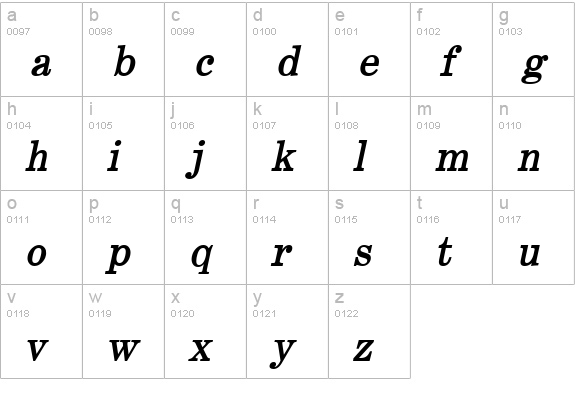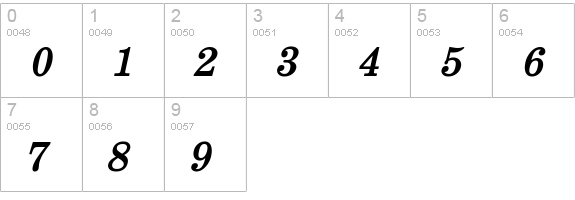
Annual Bold Italic Font Details
Annual Bold Italic is a strong, high-contrast, italic variant in the Annual typeface family \xE2\x80\x94 well suited to headlines, attention-grabbing titles, and strong calls-to-action.
Annual Bold Italic font is a striking and versatile typeface that commands attention with its bold and italicized design. This font is perfect for making a statement in headlines, titles, or branding materials. Its unique combination of boldness and slanted style adds a touch of modern sophistication to any project. What sets Annual Bold Italic font apart is not only its eye-catching aesthetics but also its accessibility. This font is available for free download at FontsMarket.com, making it a valuable addition to any designer's toolkit without breaking the bank. Whether you're working on a poster, website, or logo, Annual Bold Italic font is sure to elevate your design with its bold and dynamic presence. Download now and add a touch of bold elegance to your next project.